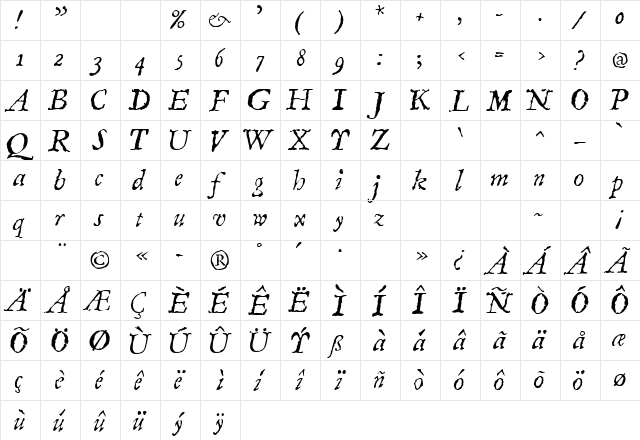
LTCompendio Regular Italic
LTCompendio Regular takes a measured approach to typography — its balanced proportions and neutral character make it a reliable workhorse for both digital and print work. The slanted form adds forward momentum and visual energy.